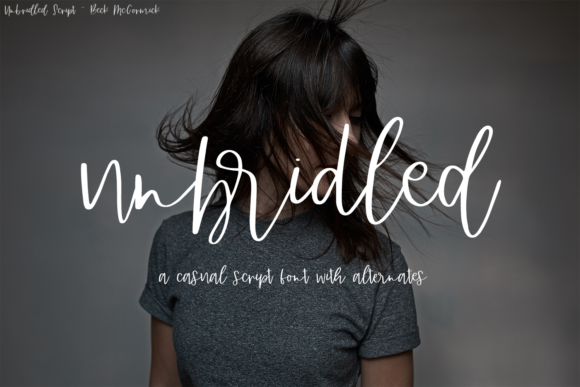
Journey into the realm of Unbridled, a captivating script font family that dances across your designs with grace and allure. BeckMcCormick's creative genius breathes life into this unique font, capturing the essence of elegance and sophistication. Unbridled is a visual masterpiece, inviting you to explore the boundless possibilities of your imagination.
With a stroke of Unbridled's enchanting curves, transform your ideas into extraordinary expressions. Let its flowing lines carry your words across the page, like a river of ink whispering tales of beauty and grace. Create logos that radiate charm and distinction, branding that exudes timeless elegance, and invitations that ignite the heart with anticipation.
Step into a world where Unbridled's allure captivates your audience, evoking a sense of wonder and enchantment. Craft social media posts that dance with delight, captivating your followers with every scroll. Unleash the power of Unbridled in your marketing campaigns, creating brochures, flyers, and presentations that ignite the imagination and leave a lasting impression.
Unbridled is not just a font; it's an experience. A journey into the realm of creativity, where imagination knows no bounds. Its delicate swashes and graceful glyphs create a symphony of elegance, transforming your designs into works of art.